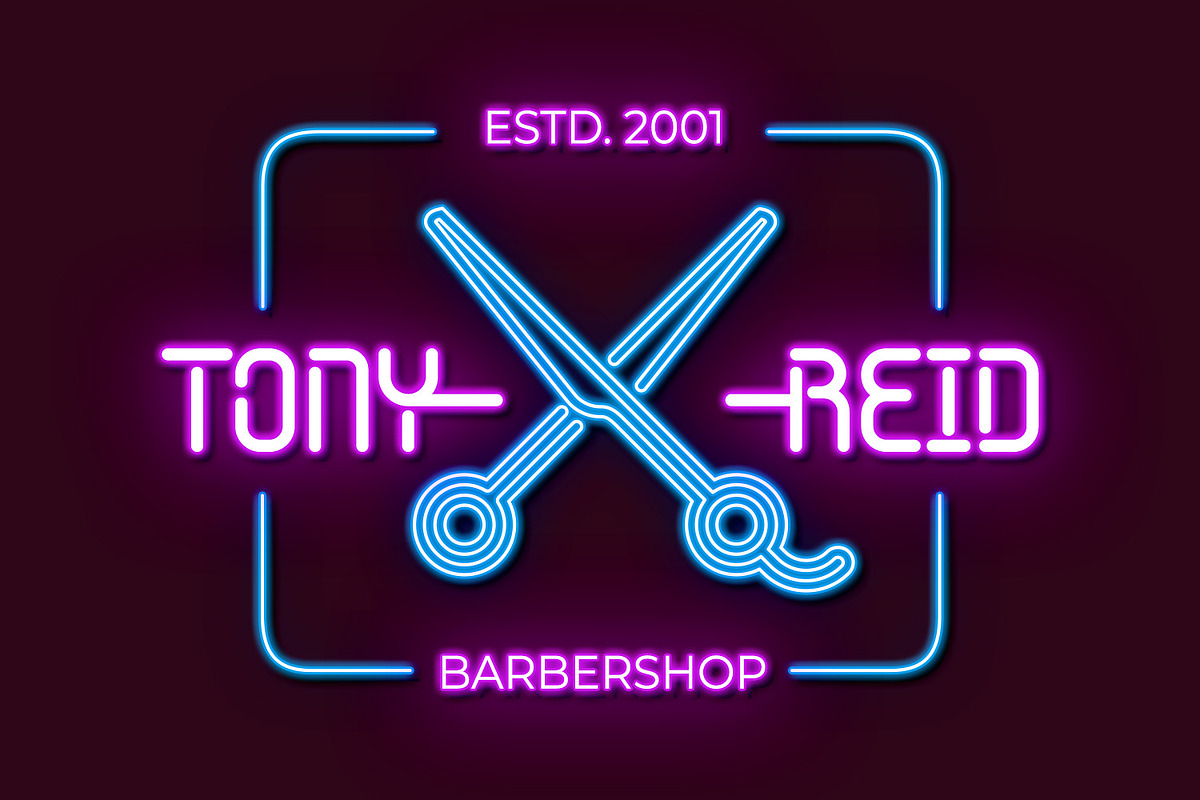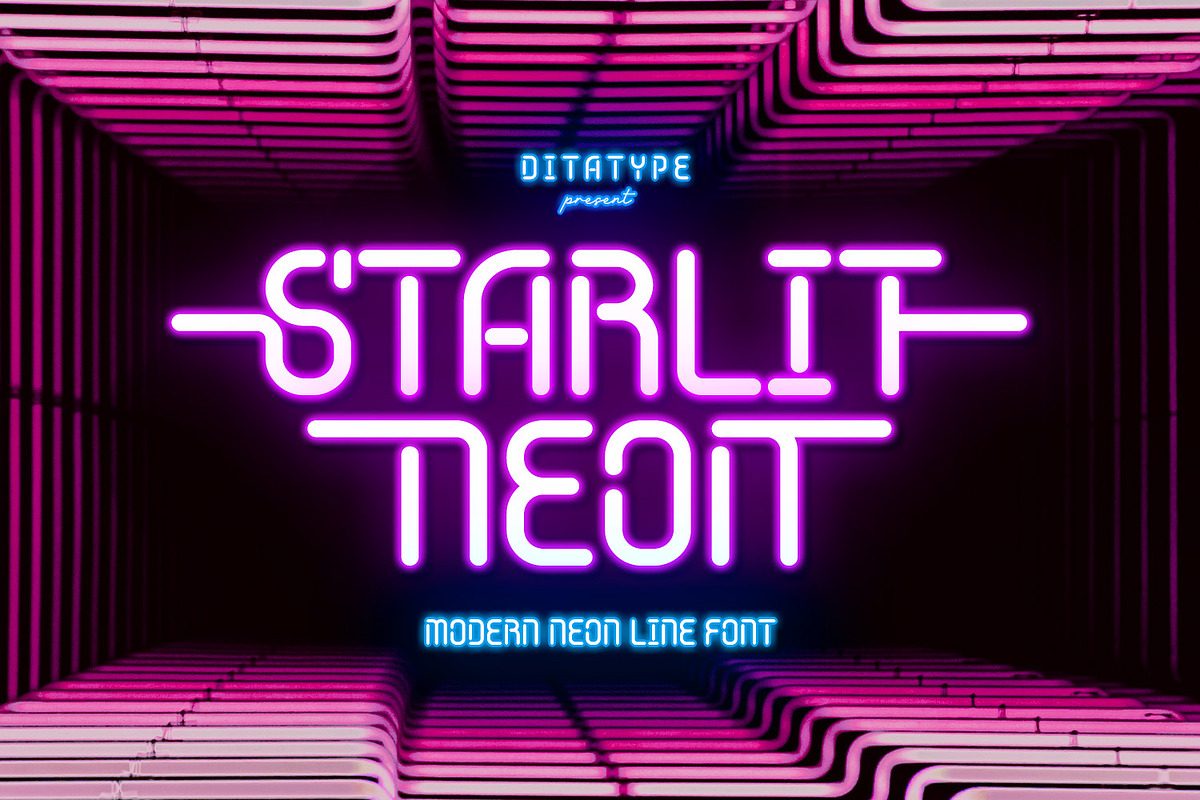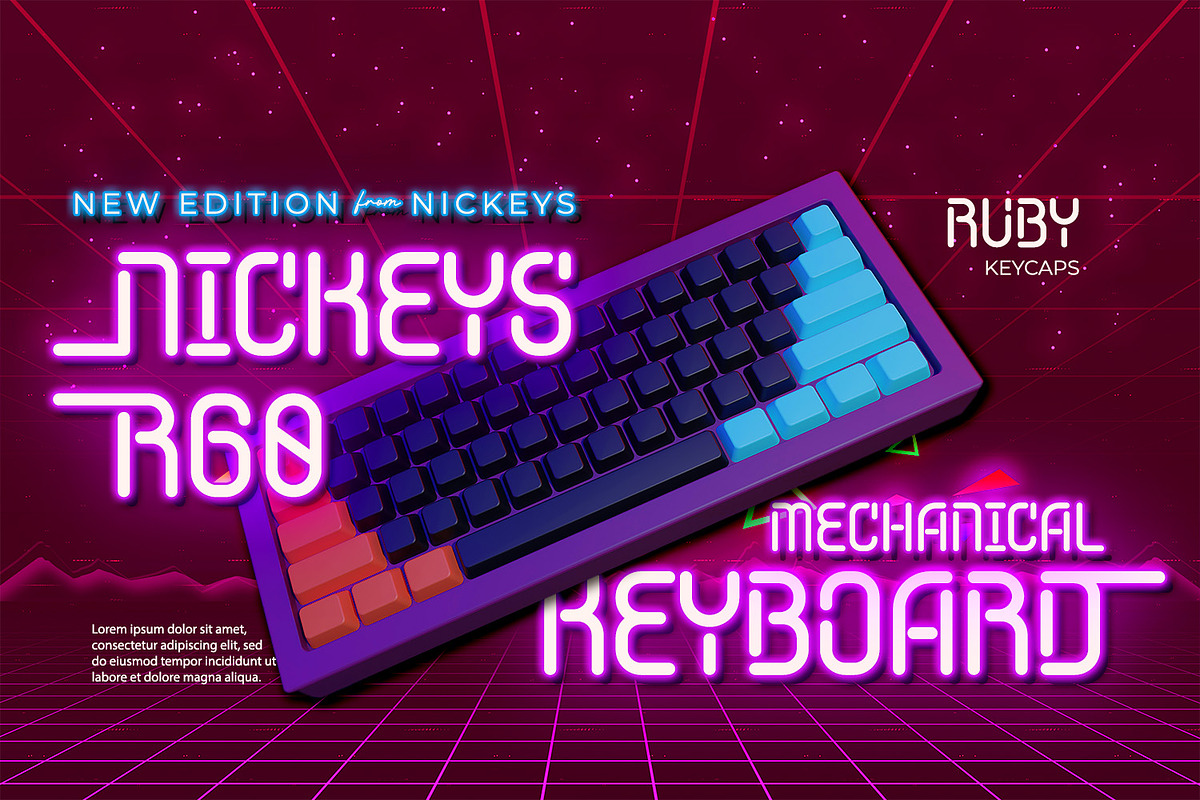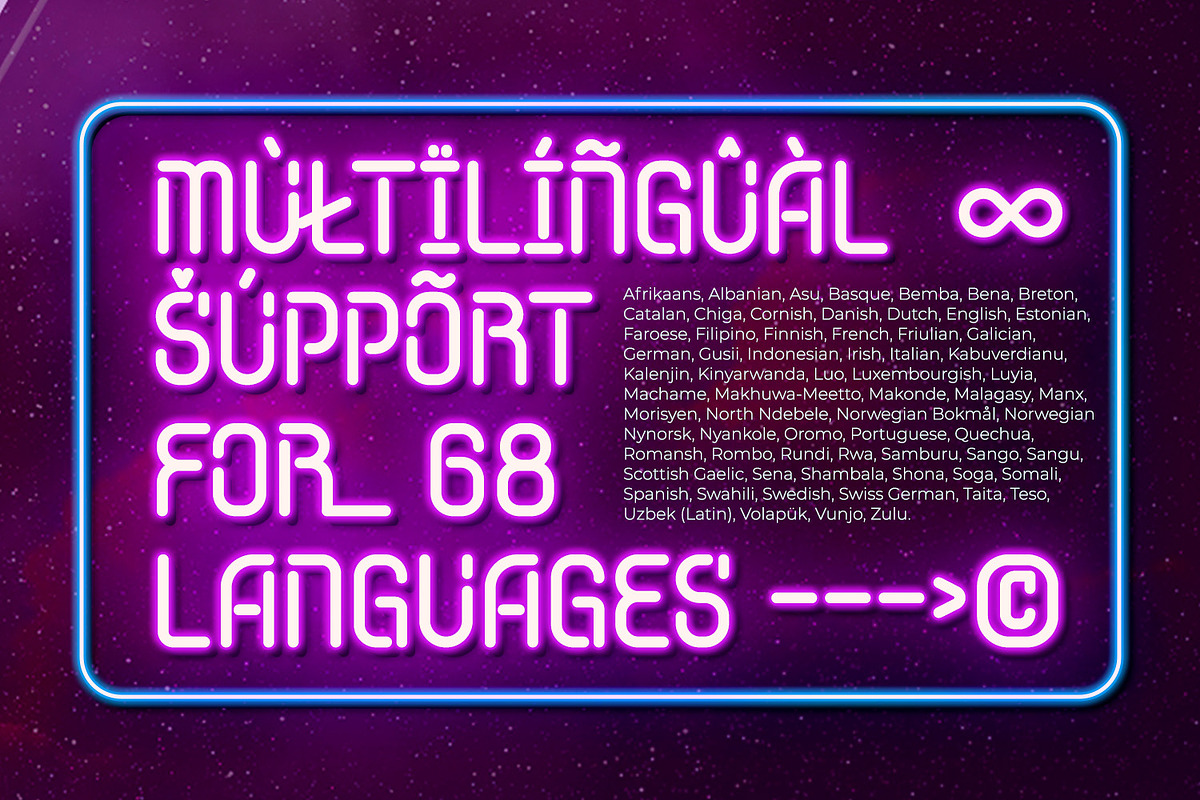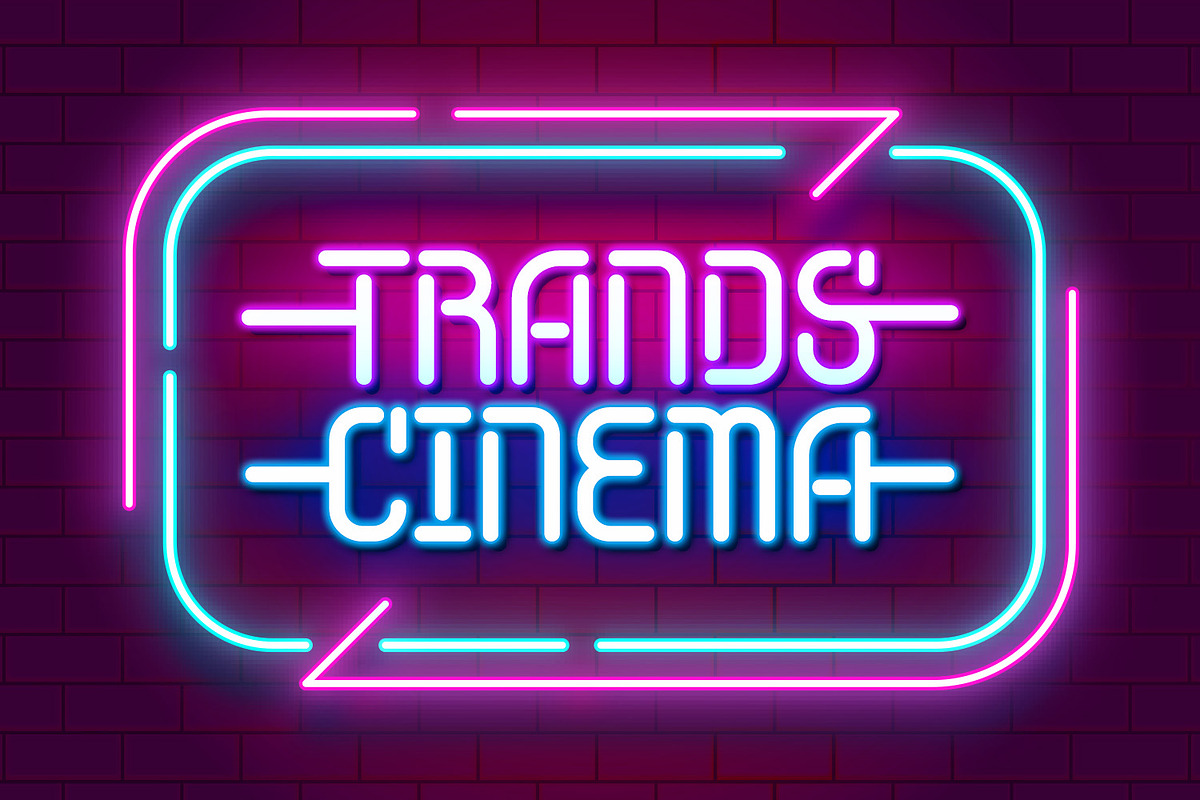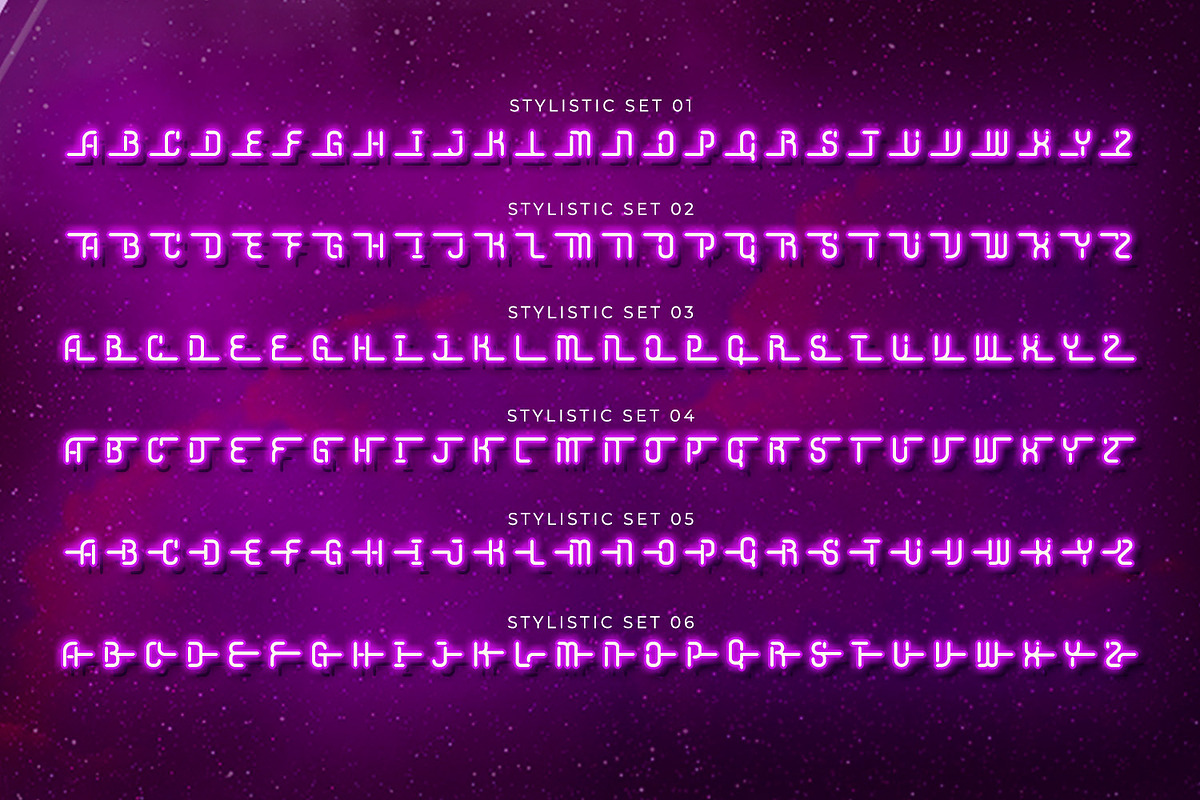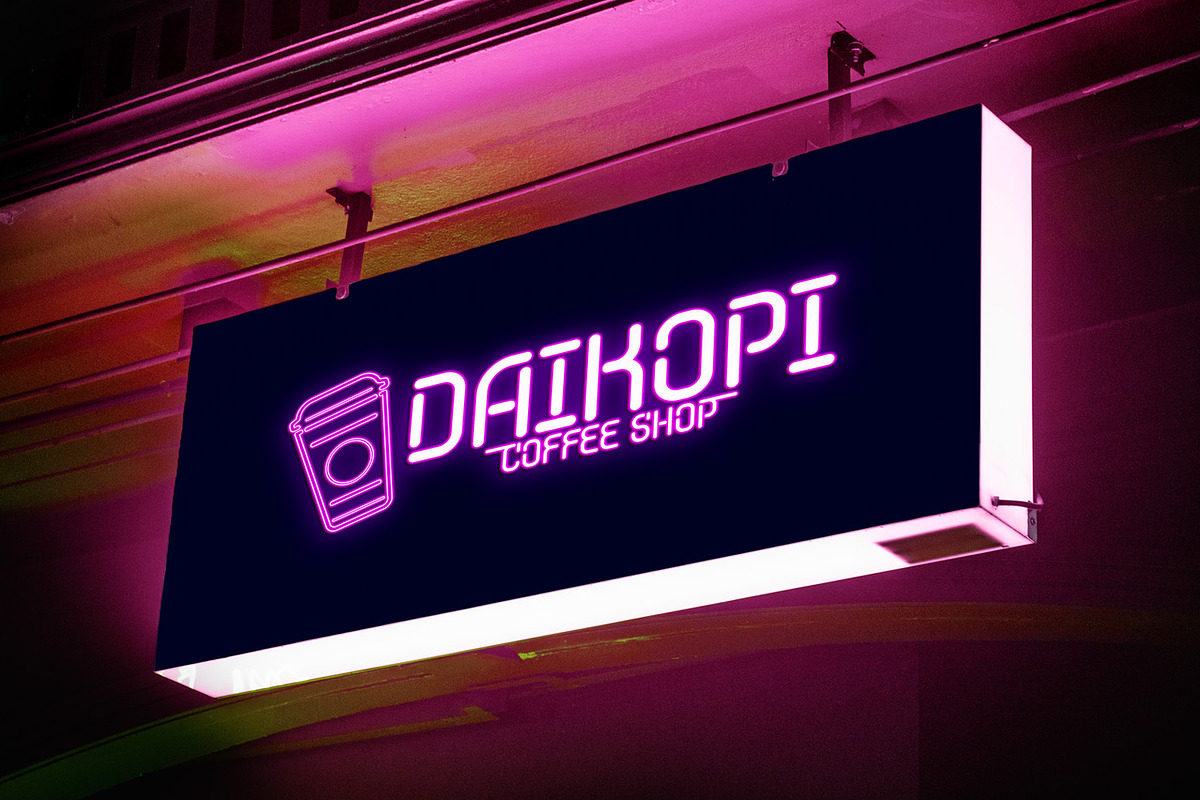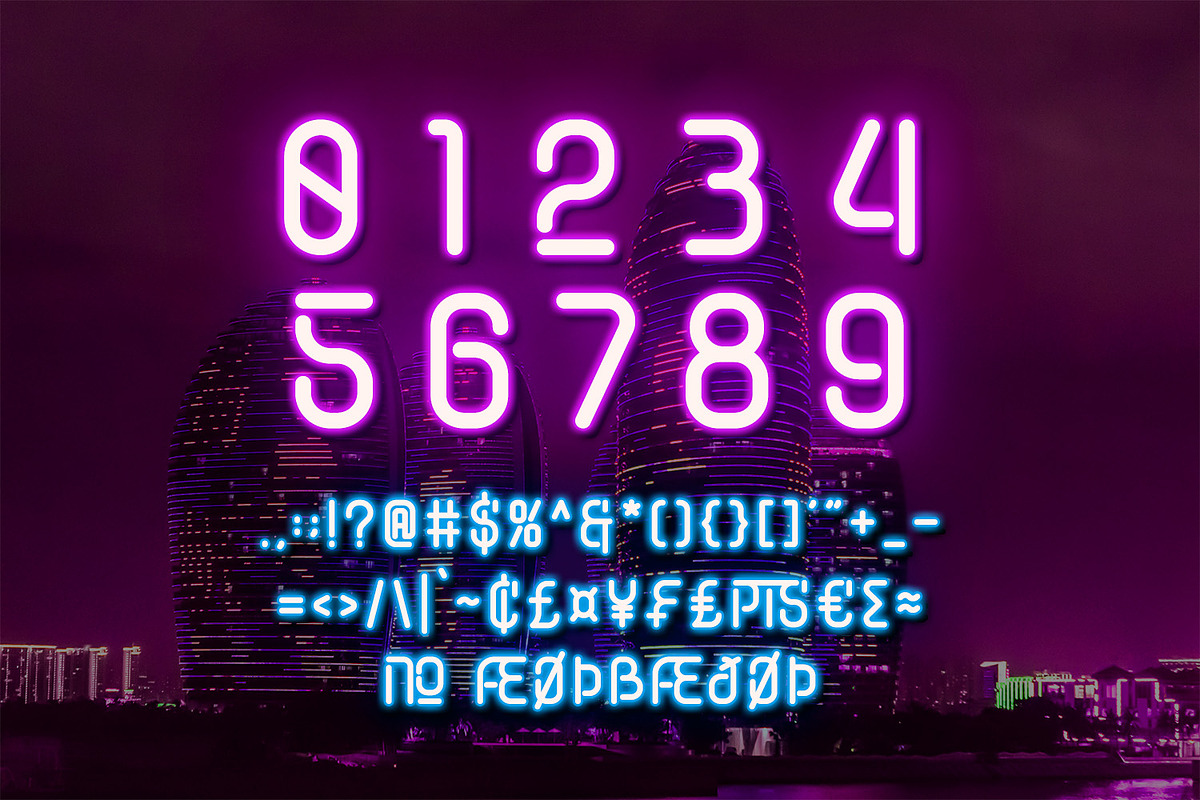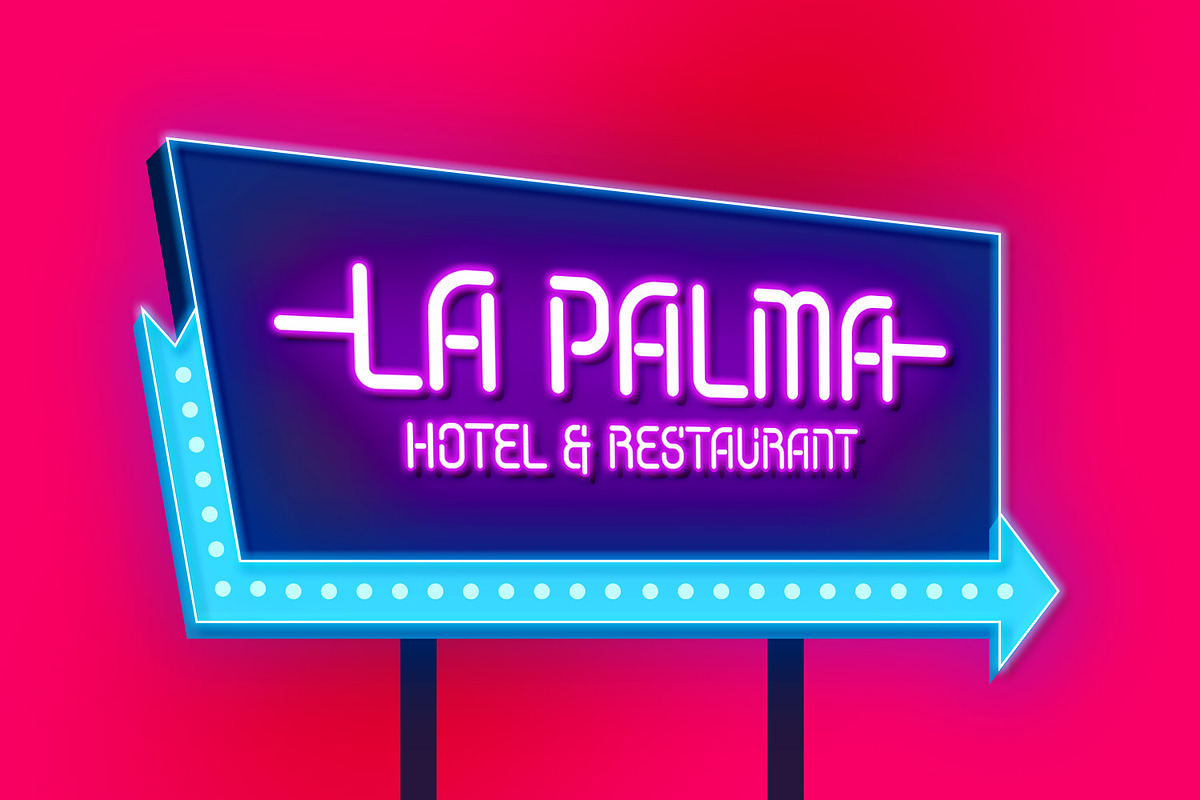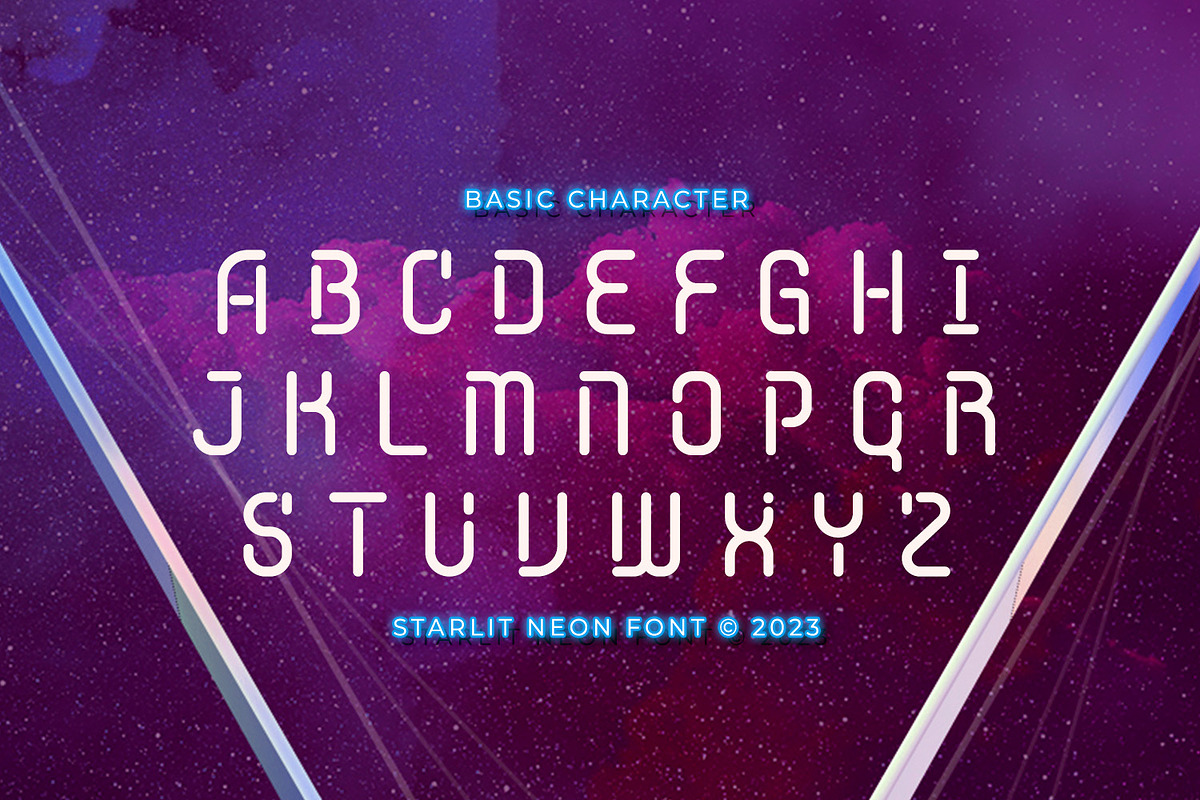
Starlit Neon
Starlit Neon is a delightful display font that combines the elegance of rounded letterforms with the captivating allure of neon lights. With its bold uppercase characters and unique design, this typeface adds a touch of playfulness and charm to your projects. The defining feature of Starlit Neon lies in its rounded letterforms, which exude a sense of softness and approachability. Each letter is meticulously crafted with smooth curves, creating a harmonious and pleasing aesthetic. The rounded shapes give the font a friendly and welcoming appearance, while the neon style adds a touch of excitement and vibrancy.
Inspired by the mesmerizing glow of neon signs, Starlit Neon infuses a sense of enchantment and allure into each character. The font captures the captivating charm of neon lights, casting a radiant glow that evokes a magical atmosphere. In some letters, you'll find additional subtle accent lines, which enhance the overall composition with a touch of sophistication. The uppercase letterforms of Starlit Neon are bold and assertive, commanding attention with their rounded shapes. Each letter of Starlit Neon is thoughtfully crafted to strike a balance between rounded shapes and legibility. The uppercase characters are distinct and easily recognizable, ensuring your message remains clear and impactful. The additional subtle accent lines in select letters add an extra touch of visual interest, elevating the font's overall composition. Find out more ways to use this font by taking a look at the font preview.
Starlit Neon perfect for designs like headlines, logos, and eye-catching titles that seek to make a bold statement with a touch of whimsy. Whether you're creating posters, branding materials, digital artwork, or anything in between, this font will infuse your projects with a sense of joy and uniqueness. It particularly shines in applications related to entertainment, children's products, beauty, and lifestyle themes. Find out more ways to use this font by taking a look at the font preview.